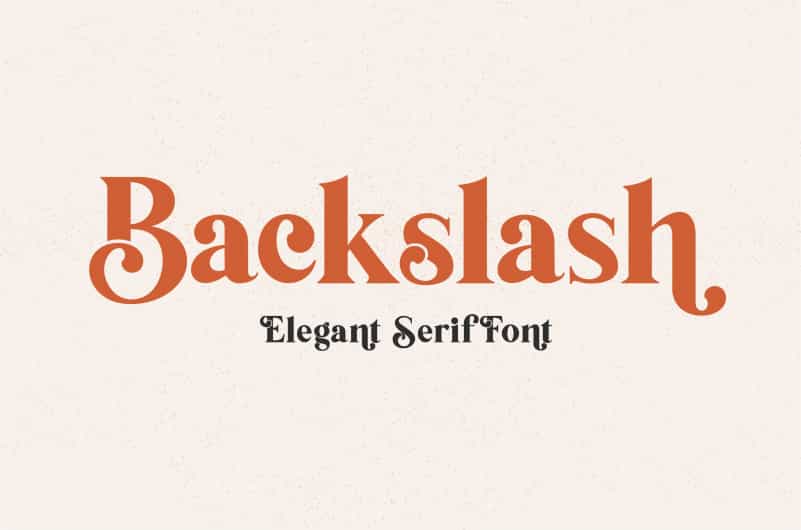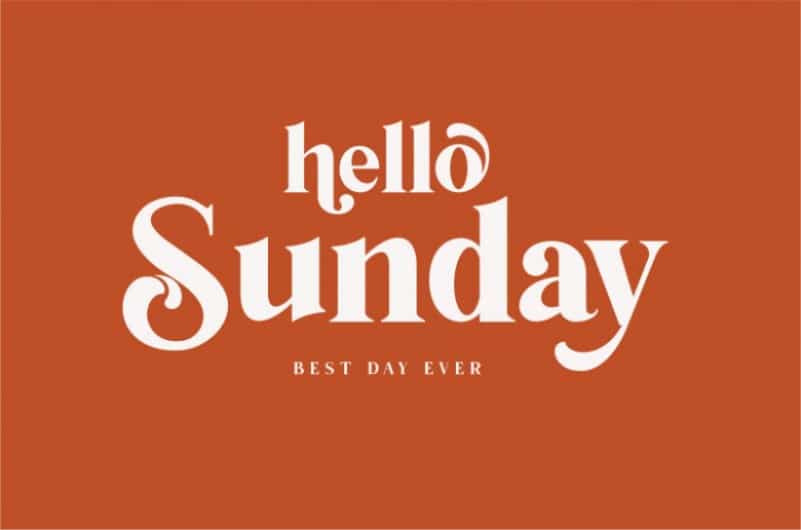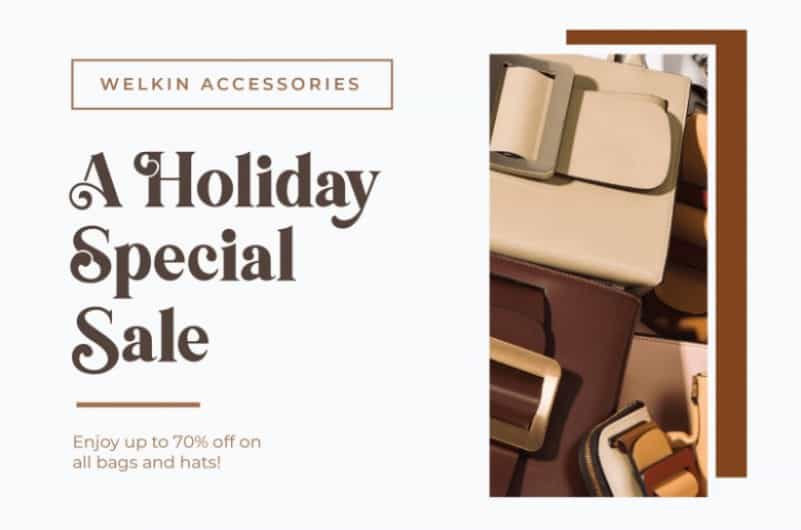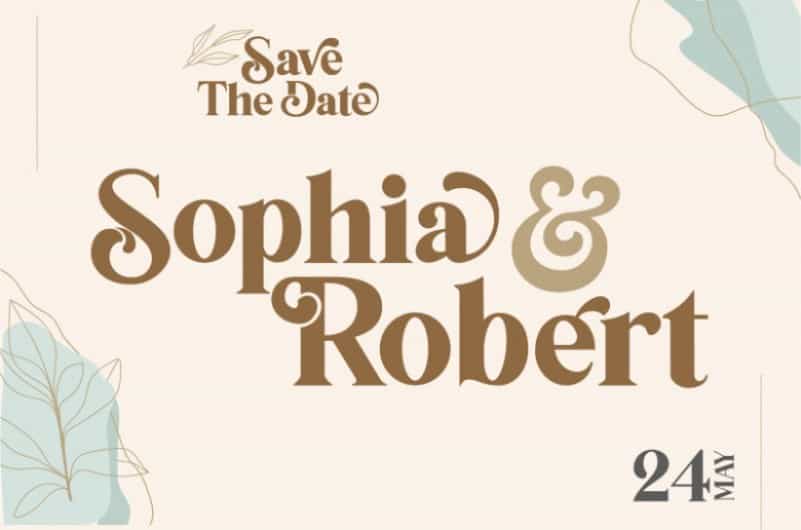
“Backslash”- A brand-new Serif Typeface that comes with a wide range of alternate characters ornaments, support for multilingual languages and distinctive Ligatures. Backslash is a upper and lowercase serif font, with beautifully smooth curves.